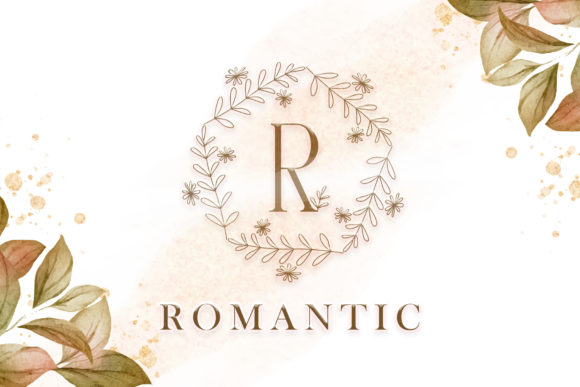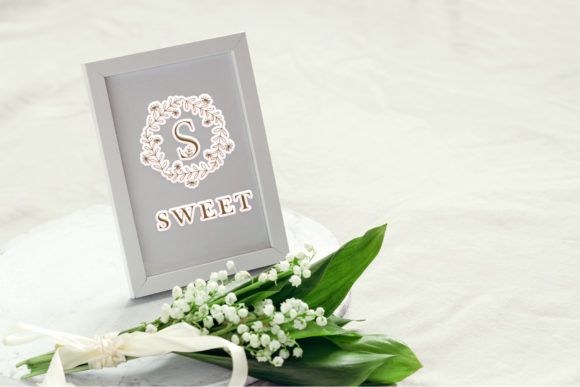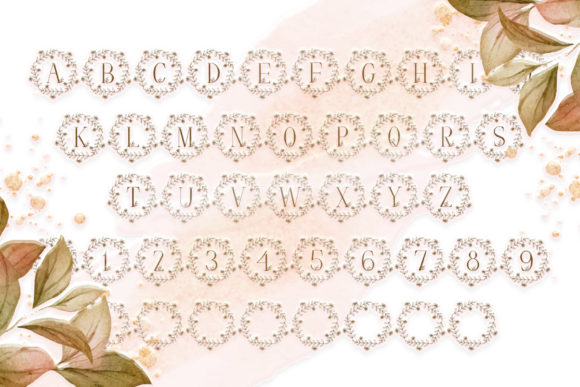
Introduction to Petite Floral Monogram Font
Petite Floral Monogram is a dainty and unique decorative font.
Add this romantic and lovely looking font to each of your love letters, wedding invitations or favorite design ideas, and you will be astounded by the outcome .
Key Features of Petite Floral Monogram Font